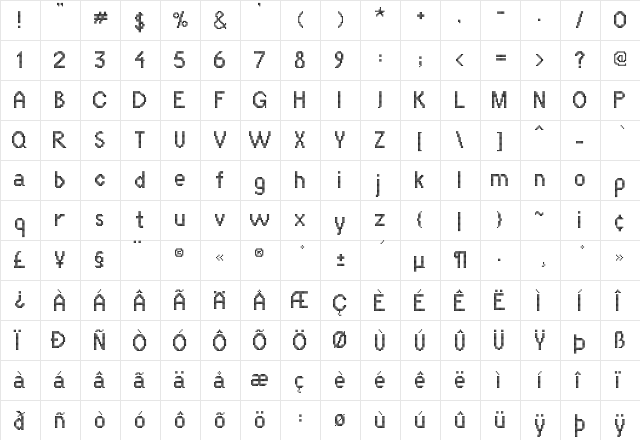
LLMirai Regular Font Preview
LLMirai Regular
LLMirai Regular Font Details
| Foundry | http://www.die-gute-schrift.de/ |
| Designer | Markus Schroeppel |
Design Context for LLMirai Typeface
LLMirai offers clean, dependable letterforms without strong stylistic allegiance, making it a practical choice for designers who need flexibility.